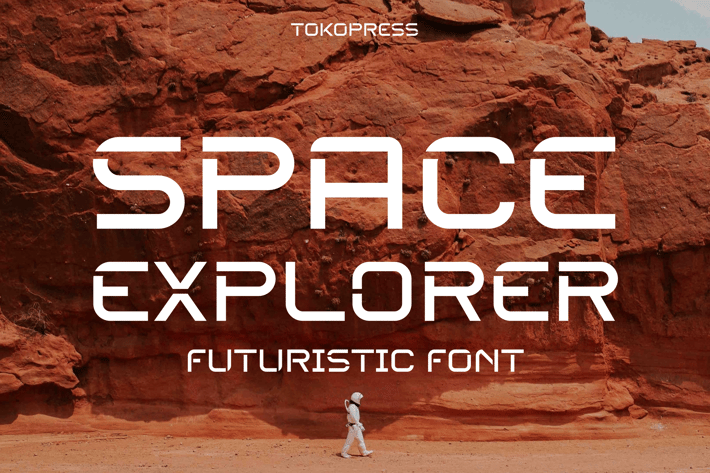
SPACE EXPLORER - futuristic font
SPACE EXPLORER - Futuristic Font
SPACE EXPLORER is a futuristic geometric typeface that blends bold modular shapes with precise terminals—crafted for those seeking a long-tail space-themed display font that delivers high visual impact. With its angular proportions, wide stance, and sleek symmetry, it radiates a high-tech, sci-fi vibe that’s ideal for posters, space branding, and editorial layouts. Its strong contrast and clean spacing give it usability across both print and digital platforms, making it a versatile tool for design-forward creators.
Designed with interstellar themes in mind, SPACE EXPLORER is your go-to font for space missions, sci-fi movie titles, digital product launches, or editorial spreads about futuristic tech. Its bold and commanding presence makes it perfect for branding that needs to capture curiosity and imagination—whether you're designing a game UI, event poster, NFT label, or tech startup launch visual.
Key Features :
Futuristic Aesthetic
- Modern, high-tech geometric shapes that command attention
- Suitable for clean tech branding and cinematic display projects
Cross-Platform Friendly
- Looks stunning on both screen and print
- Clear readability at large and medium sizes
* Smart Design Choice
- Sturdy baseline and sharp angles ensure high visual impact
- Aligns well with editorial grids and responsive layouts